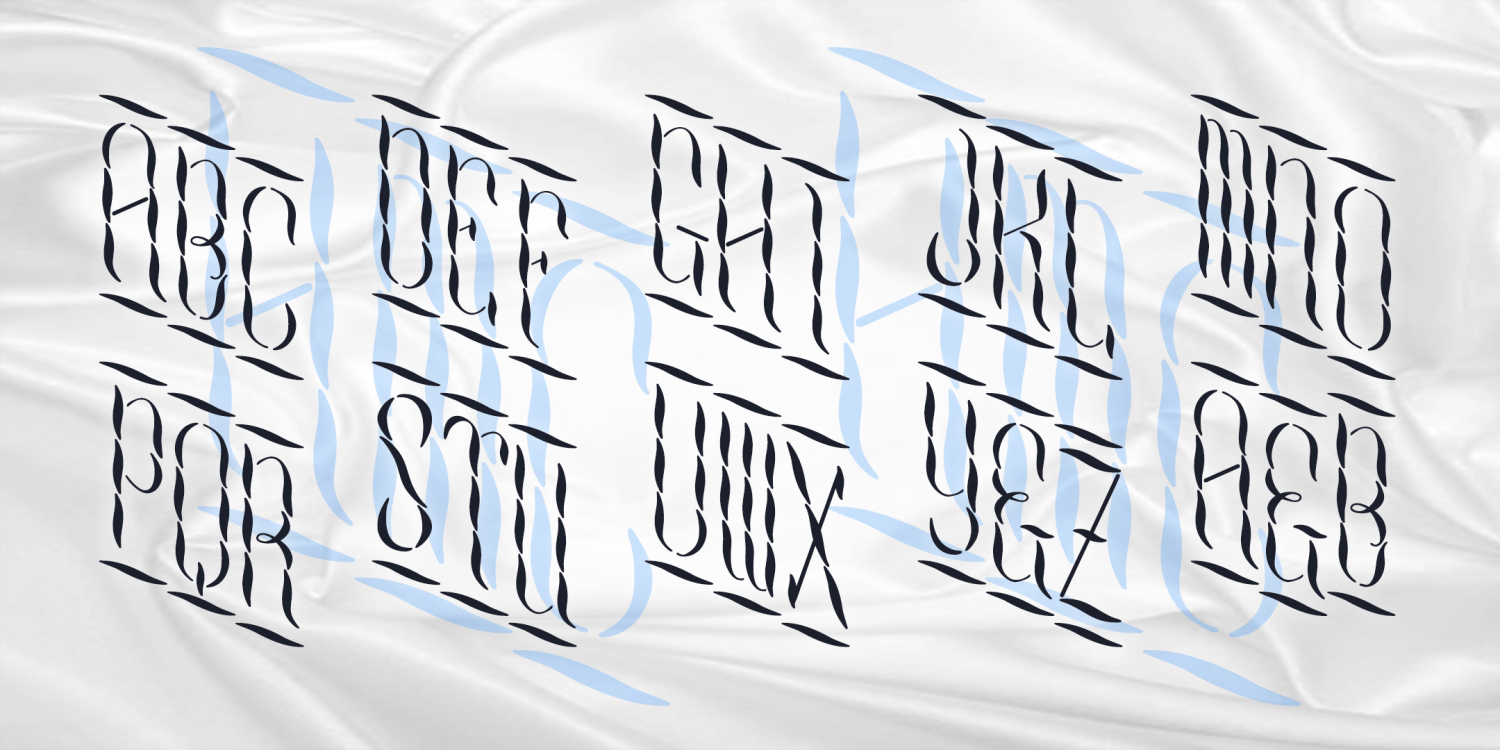
Cascade Monograms
Cascade Monograms lets you create custom 2- or 3-letter monograms in a distinctive rippled design. Inspired by examples of 19th-century penmanship exercises, the strokes and spaces give Cascade Monograms a special sparkle, suggesting twisted metal or flowing liquids.